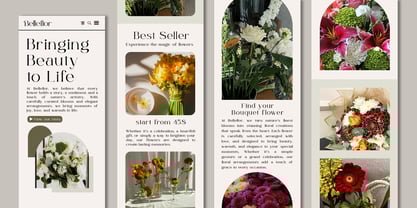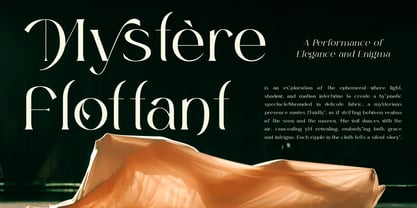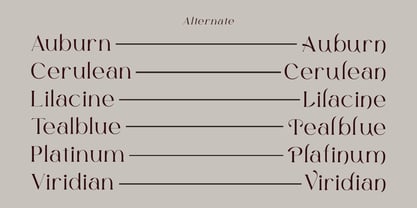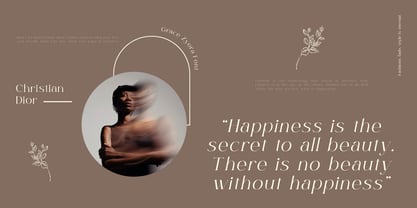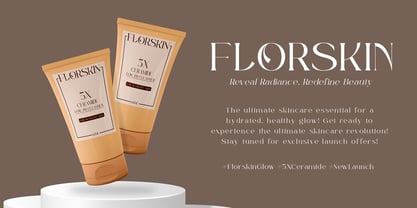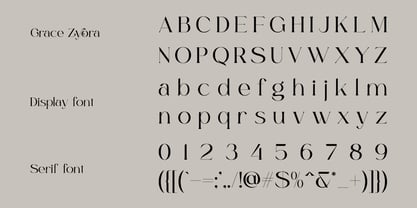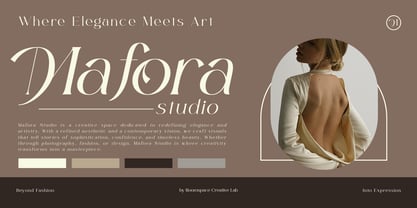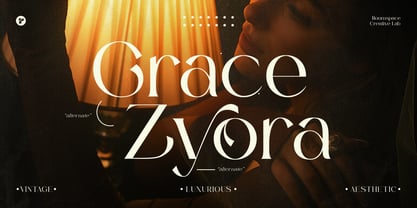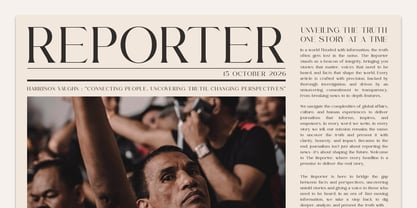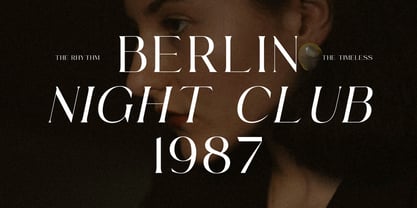
Grace Zyora
by Jafar07
The Grace Zyora Font Family was designed by Bakhrudin Ja'far and published by Jafar07. Grace Zyora contains 2 styles and family package options. More about this family
Grace Zyora is a sophisticated serif typeface that effortlessly blends vintage elegance with a modern edge. This font is perfect for luxury branding, editorial layouts, and eye-catching logo designs, offering a refined yet impactful presence. With its graceful curves and distinctive alternates, Grace Zyora brings character and versatility to any creative project. It is ideally suited for wedding invitations, fashion magazines, product packaging, and high-end brand identities. The typeface adapts seamlessly to minimalist backgrounds as well as bold, expressive visuals, guaranteeing it stands out in any design context.